Serif Fonts Decoded: The Different Styles and Where They Shine
When your design demands a touch of tradition, one type of font often comes to mind: serif fonts. These fonts, with their classic charm and vintage book print style, have a way of enhancing the aesthetic appeal of designs.
It’s a well-known fact that they exude a sense of elegance, sophistication, and reliability. However, there’s more to serif fonts than a traditional tone. From classic to contemporary, subtle to dramatic, serif typefaces can display a wide range of moods and styles. This makes them one of the most versatile typeface categories to use in marketing and branding designs.
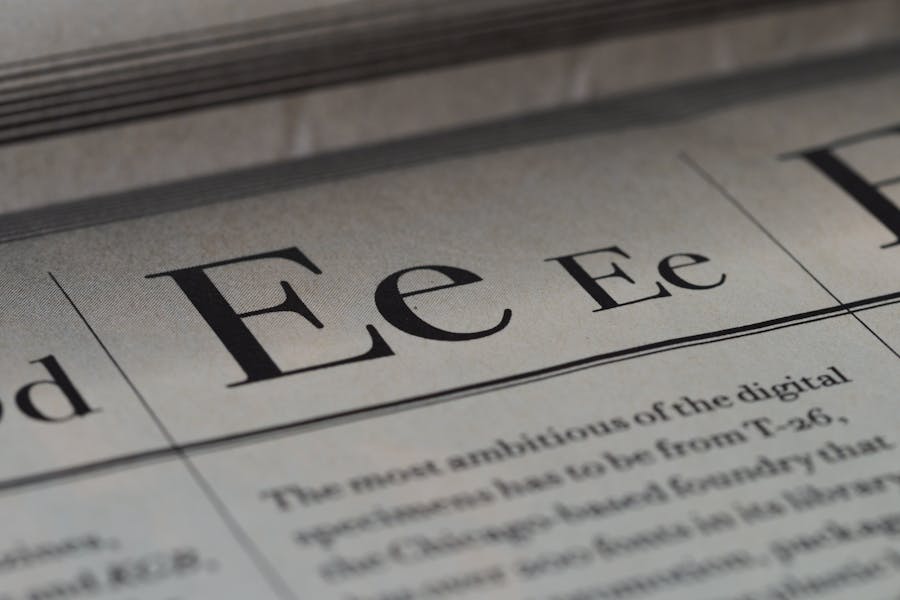
The key lies in selecting the right type of serif font and the right typeface within that category. By the end of this blog, you’ll be equipped to make those choices with confidence.
Ready to dive into the world of serif fonts? Let’s get started.
Serif Fonts: An Introduction
What are serif fonts?
In the logo below, notice the short extensions at the end of letter strokes. These extensions are called “serifs” and fonts with serifs are called serif fonts.
Observe the professional touch the serif font imparts to the design above. This is one of the most common reasons why designers choose serif fonts for logo designs that are supposed to look professional and establish the brand’s credibility.
According to the book, “Typography Workbook: A Real-World Guide to Using Type in Graphic Design” by Timothy Samara, the use of serifs in writing came from the times when stone carvers added these little stroke extensions to give a neat finishing touch to strokes.
Since then serif fonts have evolved a great deal and today we find a wide range of styles and variations.
Times New Roman is undoubtedly one of the most popular serif typefaces and also perhaps one of the most commonly used.
Why should you choose serif fonts?
1. Readability
The excellent readability of serif fonts is one of the reasons why they have always held a special place in the world of print. They continue to be among some of the common typefaces used in books because they are easy on the eyes.
For instance, the brochure below uses serif typefaces for both subheadings and body text. For such designs that call for long lines of text, there are many serif typefaces that can enhance readability.
2. Attention-grabbing
For those places where you need a bold attention-grabbing typeface to emphasize the core message or the headline, then serif typefaces never let you down. They have the power to make the text stand out provided you use them in the right size.
In the business card design featured here, the serif typeface for the name lets the name pop out of the design and adds a beautiful touch.
3. Versatility in style
The serif typeface category consists of diverse styles each of which can influence the mood of the design. Therefore, depending on the purpose of your design, the target audience, and the visual theme, there are serif typefaces for different requirements.
Here’s an example. In the design below, the serif typeface helps designate the spooky Halloween theme required for the design. In contrast, in the designs we explored previously, we have seen serif typefaces that look professional and chic.
4. A blend of elegance and modernity
Serif typefaces are classy and refined and therefore you often see them appearing in high-end branding. So, if you need your text to add a polished look then this typeface category is an aesthetic choice.
The flyer design below features a serif typeface for the main text. In this case, it adds a chic touch and accents the elegance of the black and gold theme.
Font pairing tips for serif fonts
Serif fonts might have different emotional depths but they are never boring. Most typefaces in this category have a bold and loud tone to them. Therefore, when pairing them with their counterparts like sans-serifs or scripts, you need to understand whether they are meant to balance each other or add a creative twist to the design. Let’s now talk about the two most popular pairing options for serif typefaces.
Serif + script
There are two ways to do this. One is to use serif typefaces to balance the intensity of a bold script font. In this case, the serif option is often chosen to make the key message in the design easy to read. The design below exemplifies this approach.
Secondly, lightweight script fonts can be used to create a harmonious contrast. For instance, in the below design, the slim and sleek script elegantly balances the striking serif font.
Serif + sans-serif
Serif + sans-serif is one of the most commonly used font pairing options. With scripts and serif typefaces, there is the common denominator of both looking slightly traditional. But with sans-serif fonts, there is a modernity that helps balance the conservative style of most serif typefaces.
Here’s an example. The serif typeface in the design below is clearly an attention-grabber. The sans-serif paired with it is gentle nature boosts the visual balance of the design.